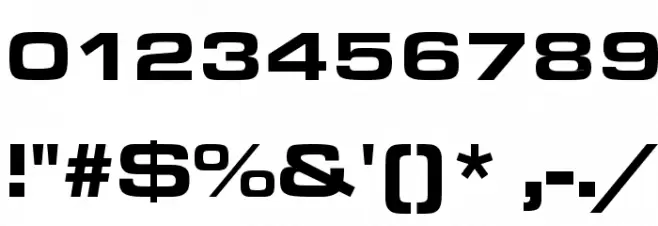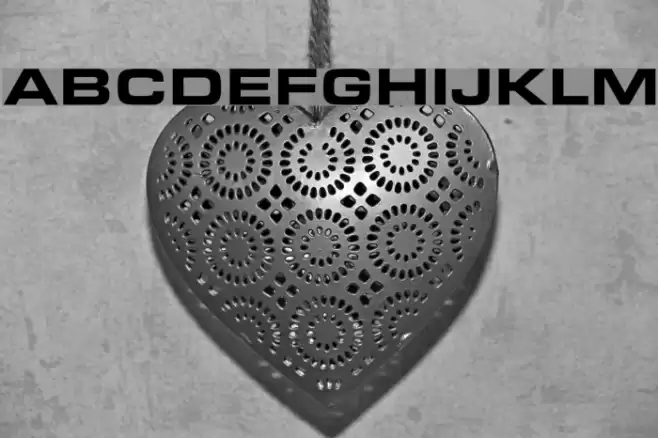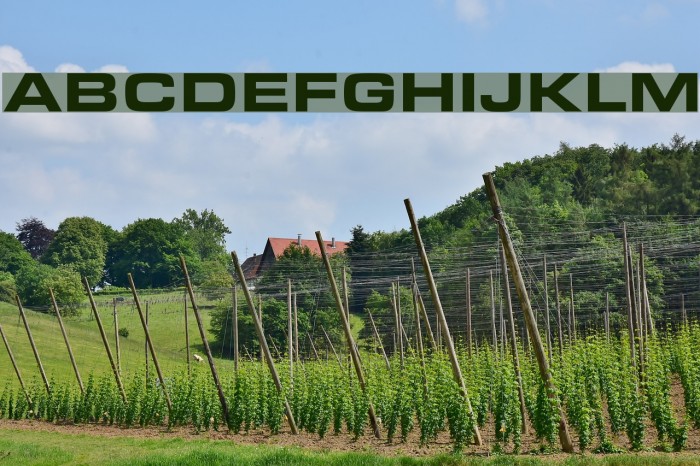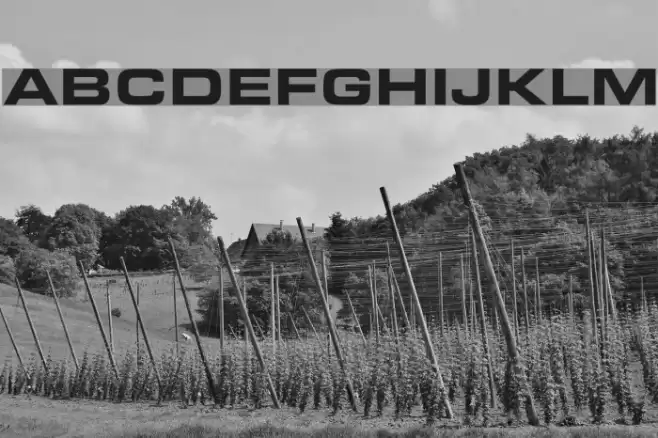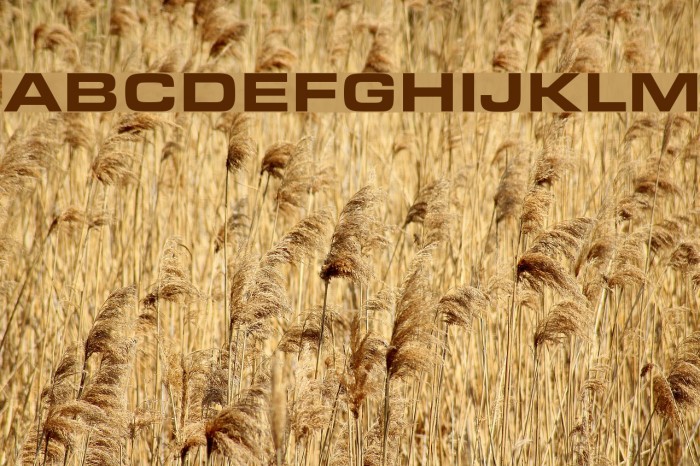
Eurostar Black Extended Font
Eurostar Black Extended Description
This font features a bold and extended style with a modern and sleek appearance. The characters are wide and have a strong presence, making them ideal for impactful designs. The uppercase letters are uniform in height and width, while the lowercase letters maintain a consistent style with slightly rounded edges. The numerals are clear and easy to read, matching the boldness of the alphabet. Special characters are included, maintaining the same bold and extended characteristics. The overall design is clean and professional, suitable for various applications that require a strong visual impact.
| Proposed Projects | Ideal for branding, headlines, posters, and any design requiring a strong visual impact. |